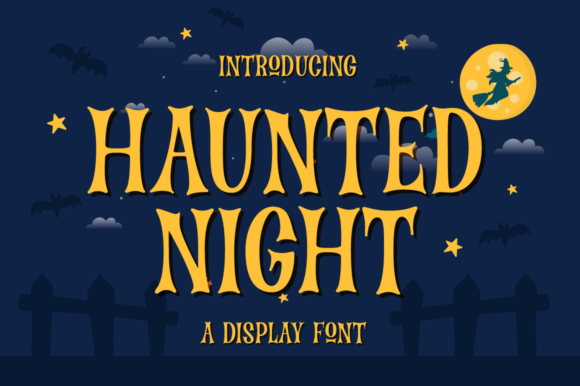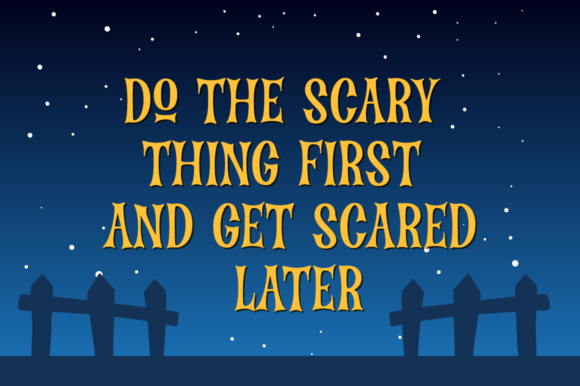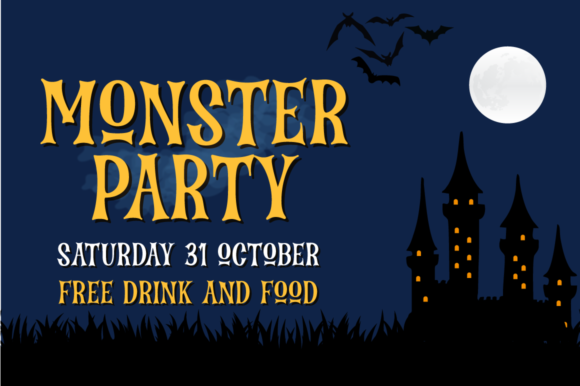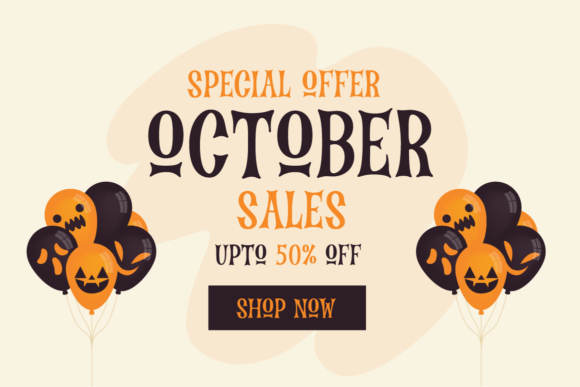
Haunted Night Font: A Spooky Display Font for Halloween & Cricut Crafts
About the Haunted Night Font
Meet Haunted Night Font, a stunning font that brings a touch of elegance and professionalism to any design. Haunted Night is a spooky and fun Halloween font. It is perfect for any October project that requires a dramatic touch!
Haunted Night’s dramatic flair makes it ideal for Halloween-themed projects, posters, and short headlines. Its playful spookiness also lends itself well to branding for events or businesses with a similarly whimsical, dark aesthetic – think haunted houses, spooky boutiques, or Halloween-themed parties. However, its highly stylized nature makes it unsuitable for body text or UI elements where readability is paramount.
Consider pairing Haunted Night with a clean sans-serif like Open Sans for contrast and improved readability in supporting text. For a more cohesive, spooky feel, a simple serif like Merriweather might also work well, providing a classic, slightly gothic counterpoint to the font’s playful forms. Avoid pairing it with other highly decorative fonts; the combination would be visually overwhelming.
The font projects a bold, playful personality with a touch of vintage horror. Its slightly irregular letterforms give it a handcrafted quality, enhancing its spooky charm without being overly childish or aggressive.
Haunted Night Font Usage Examples
Haunted Night Font Example